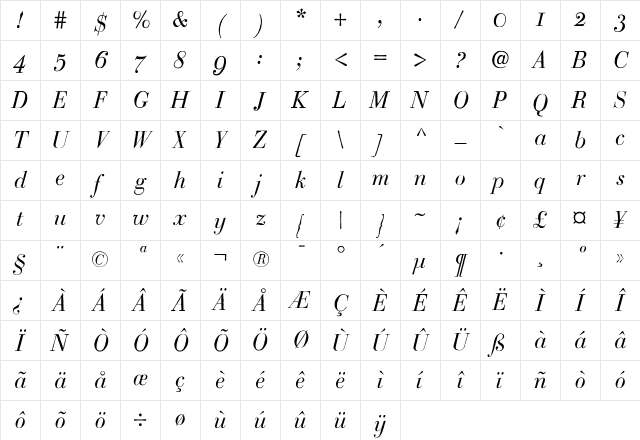
Bodoni Classic Handdrawn Medium Italic
Foundry: Gert Wiescher, Wiescher-Design, Munich, Germany, www.wiescher-design.de
Complete Bodoni Classic Handdrawn Medium Italic glyph index. Displaying only characters natively supported by Bodoni Classic Handdrawn Medium Italic font.
Design Context for Bodoni Classic Handdrawn
Bodoni Classic Handdrawn wears its vintage influences proudly, with letterforms that recall mid-century signage, classic packaging, and nostalgia-driven design. The slanted form adds forward momentum and visual energy.
Font Pairing: Combine Bodoni Classic Handdrawn with a simple slab or neutral sans - period-accurate companions reinforce the vintage feel without competing for attention.
Pro Tip: Lean into Bodoni Classic Handdrawn's period character by pairing it with aged paper textures, muted colour palettes, and vintage illustration styles.
Who designed the Bodoni Classic Handdrawn Medium Italic font?